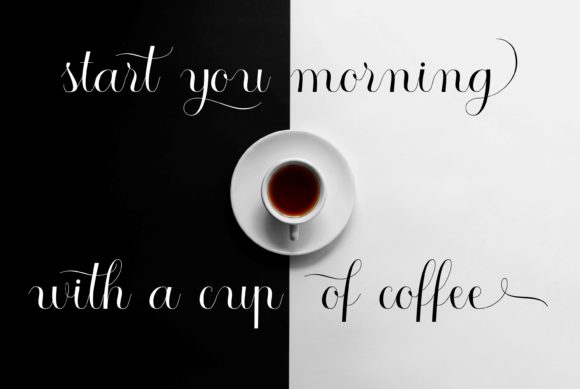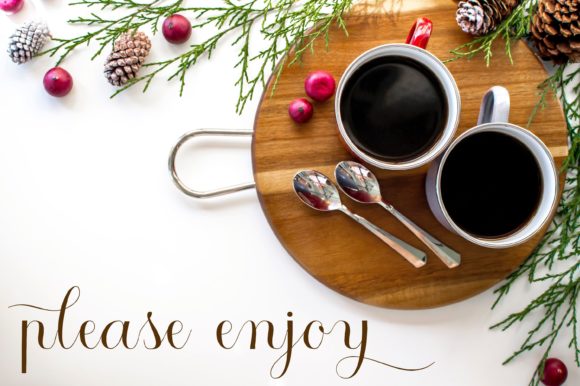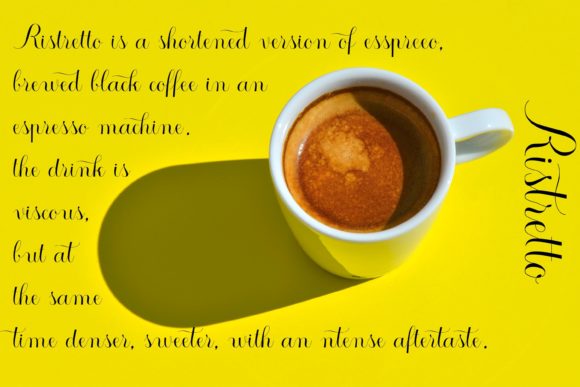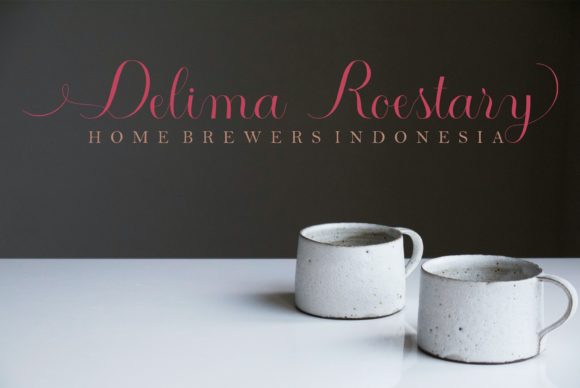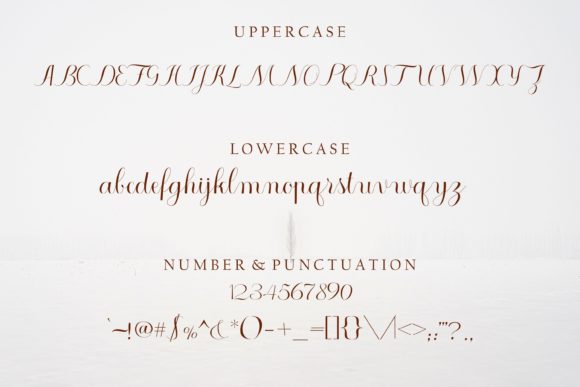
Ristretto Script Font
About Ristretto Script Font
Ristretto Script is an elegant and beautiful script font. Its distinct and well balanced letters make this font a masterpiece. This font is PUA encoded which means you can access all of the glyphs and swashes with ease!